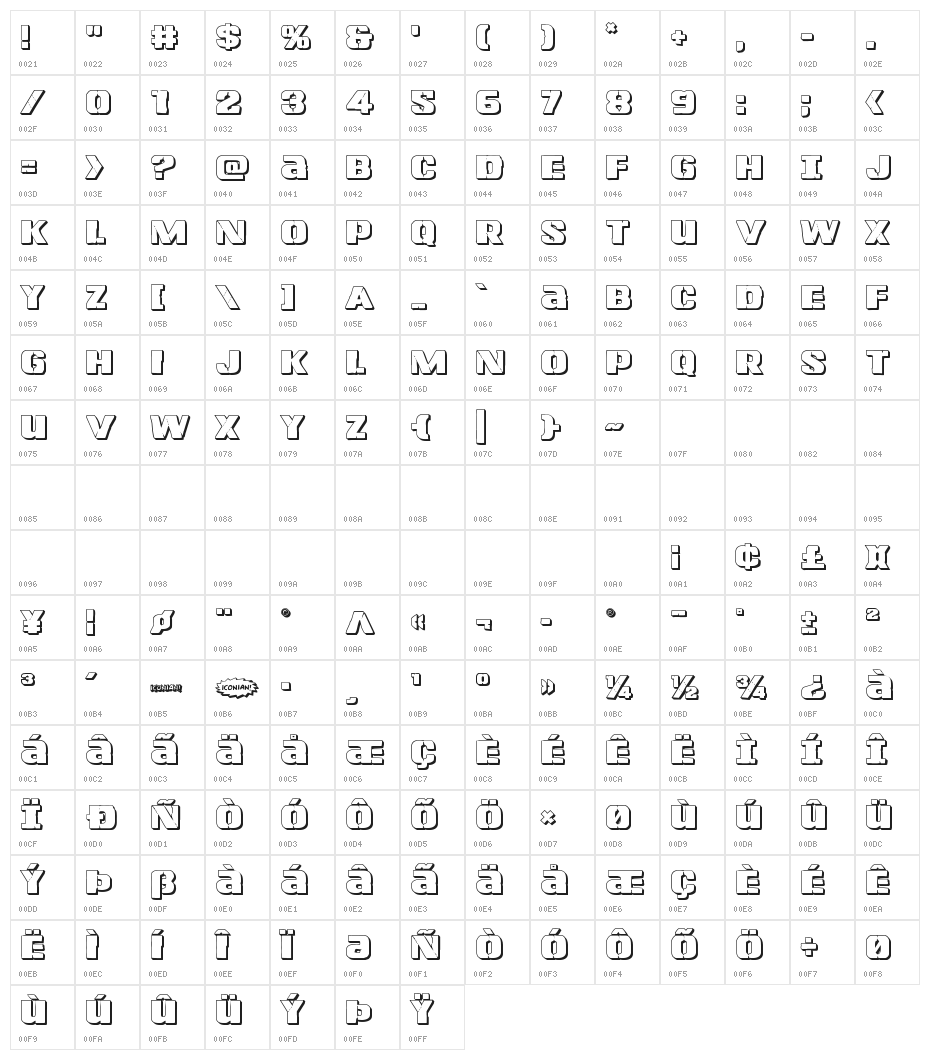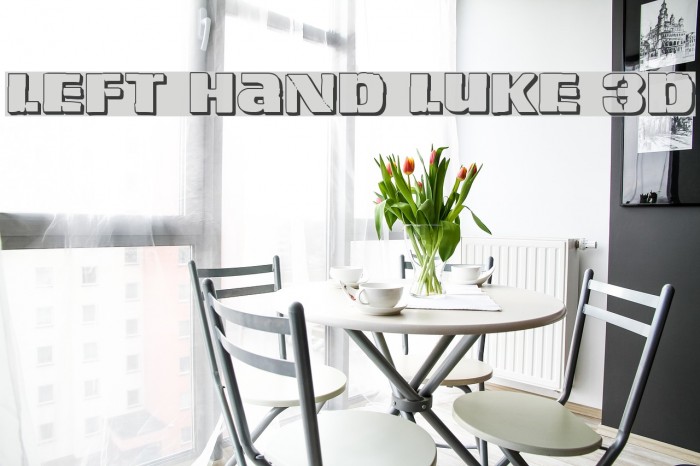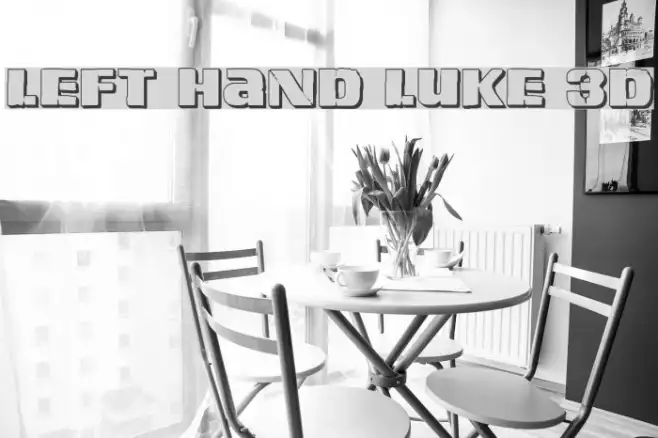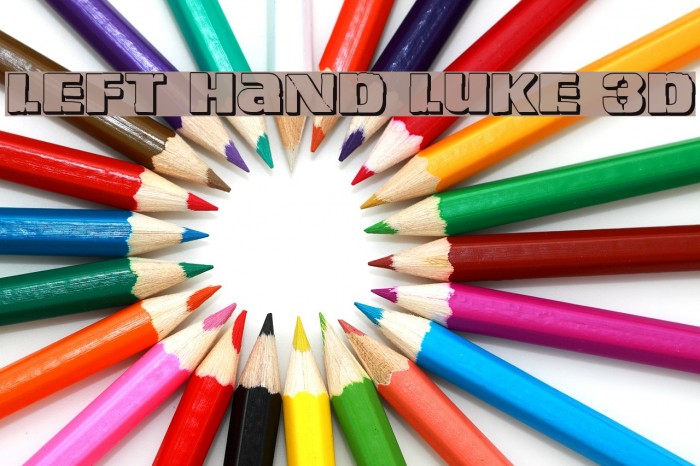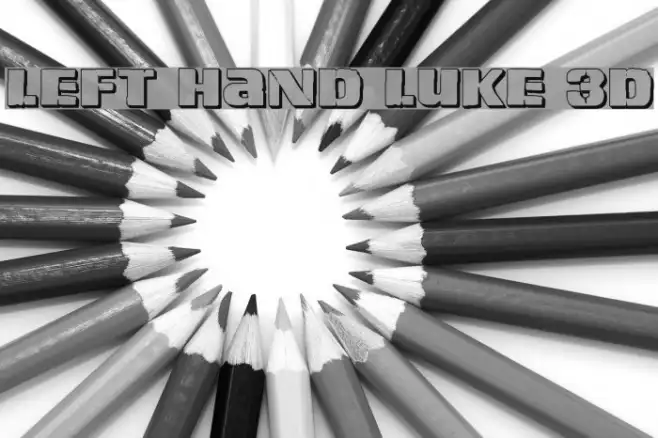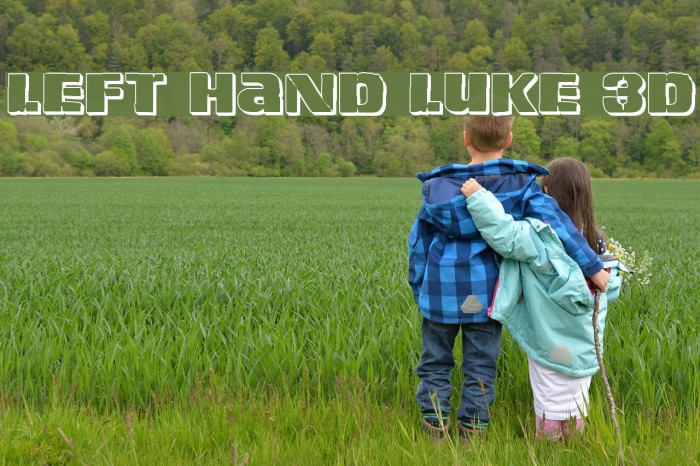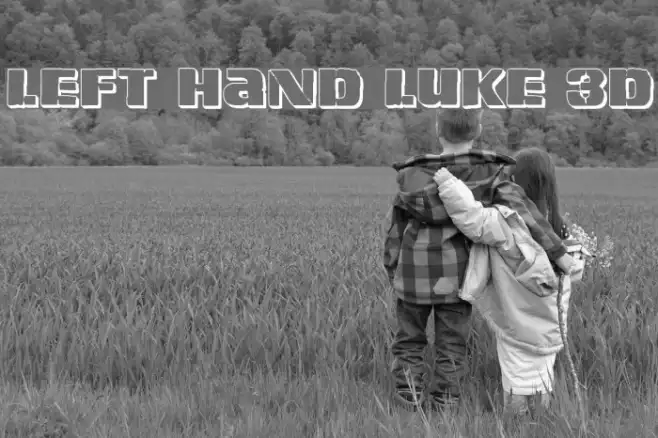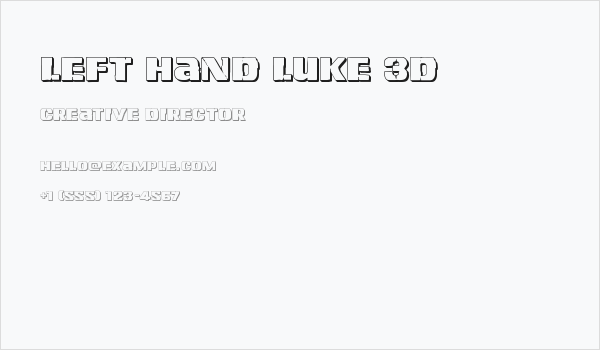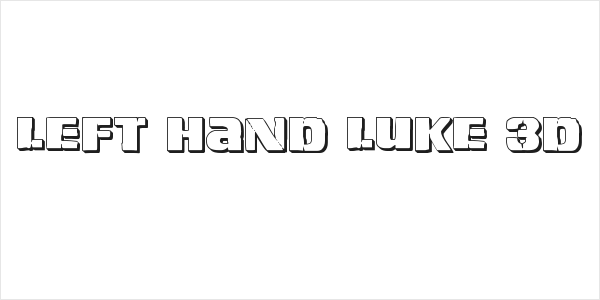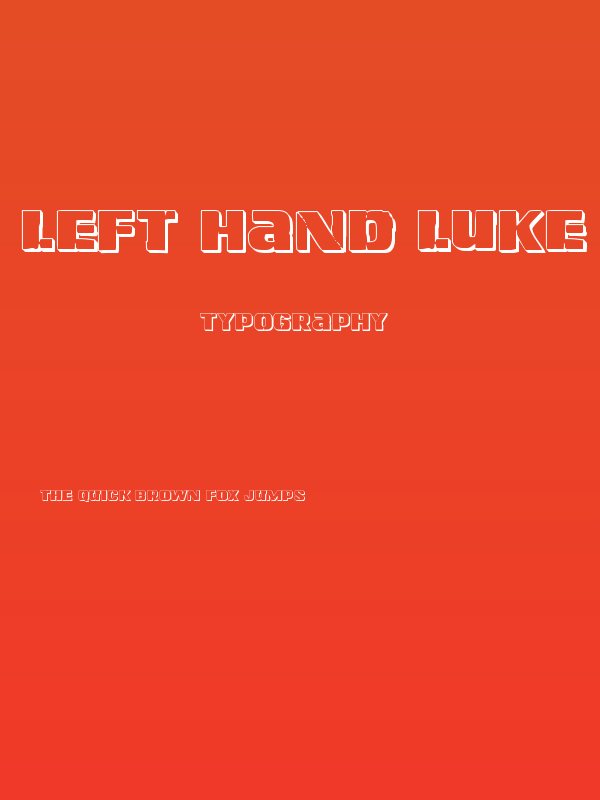
Left Hand Luke 3D Font
Left Hand Luke 3D Description
This font features a bold, three-dimensional design with a distinct shadow effect that gives each character a sense of depth and volume. The letters are uppercase and lowercase with a uniform thickness, creating a cohesive and structured appearance. The edges are slightly rounded, adding a touch of softness to the otherwise robust and solid forms. The numbers and special characters maintain the same dimensional style, ensuring consistency across all glyphs. This font is ideal for creating eye-catching headlines or titles that require a strong visual impact.
| Proposed Projects | Ideal for posters, logos, video game titles, and any project needing a bold, impactful typeface. |